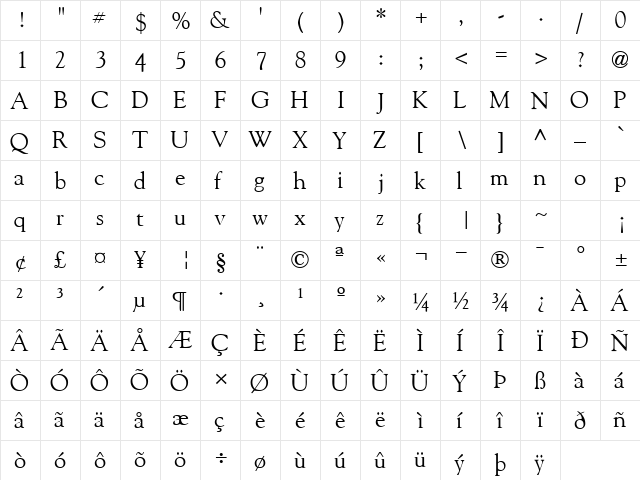
GoudySSK Regular
Design Context for GoudySSK Typeface
GoudySSK offers clean, dependable letterforms without strong stylistic allegiance, making it a practical choice for designers who need flexibility.